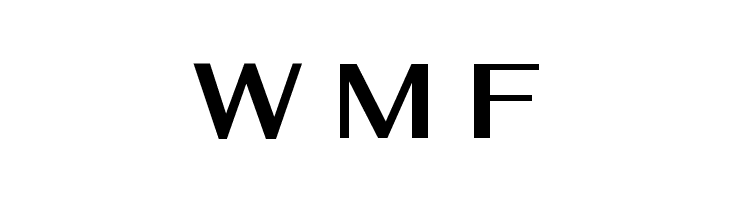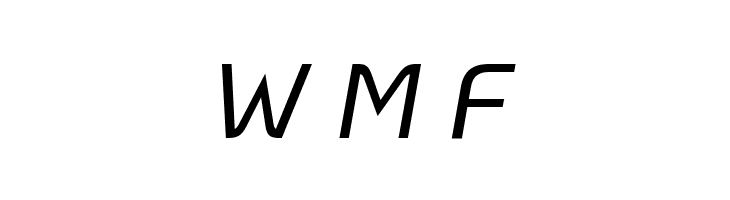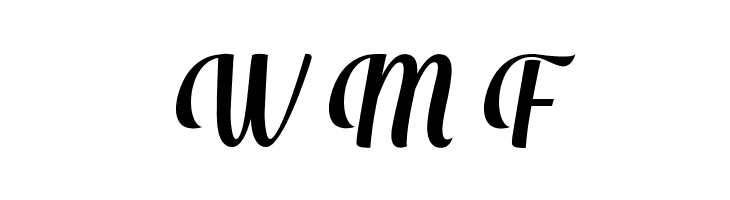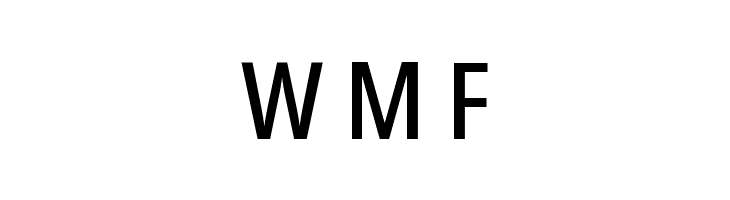
A modern sans-serif font with a semi-bold weight and slightly condensed width.
A modern, italicized typeface with clean lines and medium weight.
A dynamic and elegant script font with smooth curves and balanced weight.
A bold, modern font with geometric shapes and consistent weight.
A bold, extra-condensed font with uniform stroke weight and high legibility.
Medium-weight serif font with classic, readable forms.
A modern, condensed sans-serif font with medium weight and excellent readability.
A clean, modern sans-serif font with extra condensed letterforms and semi-bold weight.
A modern, extra-condensed sans-serif font with semi-bold weight and clean design.
A modern, clean sans-serif font with balanced weight and excellent readability.